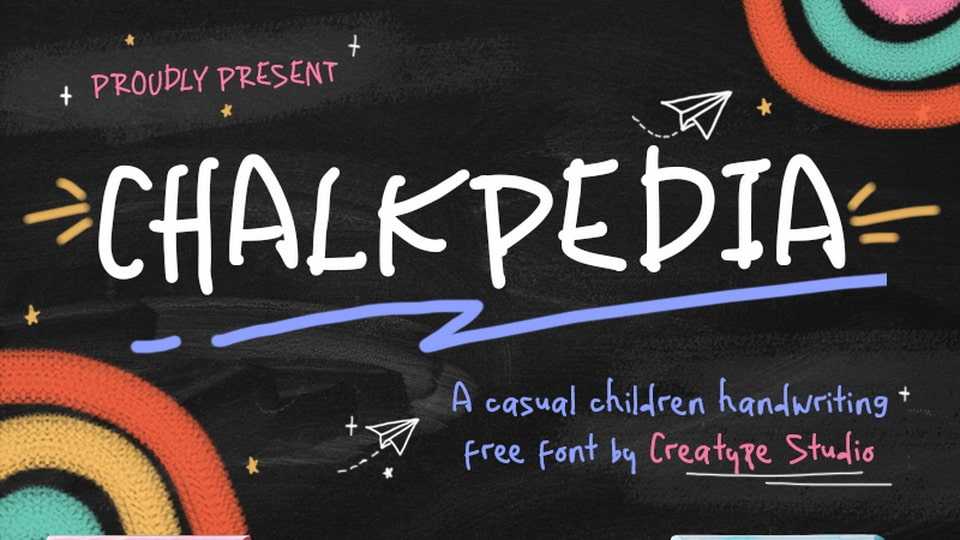
Download Chalkpedia font, a simple and imperfect hand-drawn typeface that captures the carefree spirit of a child’s handwriting, with charming quirks and spontaneity.